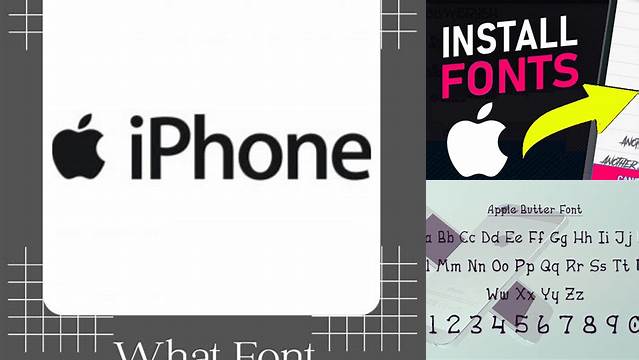
Apple iPhone Font: The Basics
So, what exactly is the Apple iPhone font, and why does everyone want it? The font, or rather, the family of fonts, used on iPhones and other Apple devices, plays a massive role in the overall user experience. It’s not just about readability; it's about the feeling, the aesthetic, the brand identity. The primary font used across the iPhone interface is usually a variant of San Francisco (SF) or, in some instances, a custom-designed version. This font family is known for its clean, modern, and highly legible design, which is crucial for the user-friendly experience Apple is known for.
When we talk about the Apple iPhone font, we're typically referring to its use in the device's operating system (iOS), in apps, and throughout the user interface. This font is carefully chosen to deliver an excellent balance between visual appeal and functionality, making it easy for users to read and understand content, even at smaller sizes. This ensures that the iPhone's interface feels intuitive and inviting. The specific versions and styles of the font can vary depending on the iOS version and the device model, but the core design philosophy of clarity and modernity remains consistent. Knowing these aspects is important because it helps establish the background.
The Significance of the Apple iPhone Font
Let’s talk about why the Apple iPhone font is so significant. It's more than just a collection of letters and numbers; it's a cornerstone of the Apple brand. The font's design, particularly the clean lines and balanced proportions, contributes heavily to the overall sleek and modern look that defines Apple products. This attention to detail in typography helps enhance the user experience by making the interface not only functional but also visually appealing. The font conveys a sense of sophistication and simplicity, aligning with Apple's overall brand message, which is all about innovation and user-friendliness.
Think about the last time you interacted with an iPhone; did you notice how effortlessly you could read the text on the screen? That ease of reading is intentional. The font is designed to be highly legible at various sizes and resolutions, ensuring a comfortable viewing experience. This is especially important on mobile devices, where users often view content in different lighting conditions and from various distances. The font's consistent style across the interface creates a cohesive visual identity, making the entire experience feel unified and polished. Apple has invested heavily in the selection and refinement of its fonts, recognizing that typography plays a critical role in creating a strong brand image and delivering a superior user experience. This is something that helps users feel connected to the brand.
The use of the iPhone font extends beyond just the text on the screen; it's part of a broader design language. The font is often used in marketing materials, websites, and other communications, further reinforcing the brand's identity. This consistency helps to build brand recognition and customer loyalty. If you want to achieve a similar style in your own designs, understanding and perhaps incorporating elements of the Apple iPhone font can be a huge help. However, you must do it in the right way.
How to Get the Apple iPhone Font (Legally)
Alright, let's get down to the burning question: Can you download the Apple iPhone font for free, and if so, how? The answer, like many things in the tech world, is a little nuanced. Legally, the full, commercial-use version of the Apple iPhone font, particularly the SF Pro font family, is typically licensed and not available for free download without restrictions. Apple has very strict licensing rules around the use of their fonts. This protects their intellectual property. However, there are several ways to approach using the font, depending on your intended use and the level of similarity you're looking for. Keep in mind, using the actual font files without a proper license can lead to legal issues.
One of the safest routes is to use the font within the context it's provided, such as within Apple's own products or in designs for iOS apps. This is because these applications are designed to make use of the font under Apple's terms and conditions. Another option is to explore the use of similar, freely available fonts that capture the essence of the Apple iPhone font, such as Roboto or Open Sans. These fonts, while not identical, offer a clean, modern aesthetic that can serve as a good alternative, especially for general use and mockups. Always ensure your font choices comply with the licensing agreements, which can vary from font to font. Another option is to consider creating mockups or personal projects where the exact font use is not critical. In these cases, you might choose a similar font or manually adjust the spacing and style of a more accessible font to mimic the Apple iPhone font.
Alternative Fonts: Mimicking the Apple iPhone Style